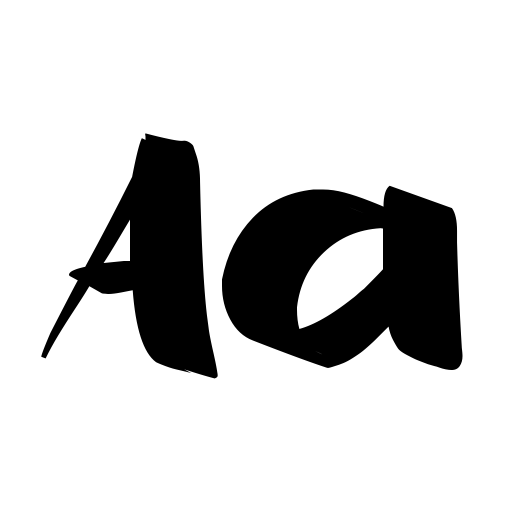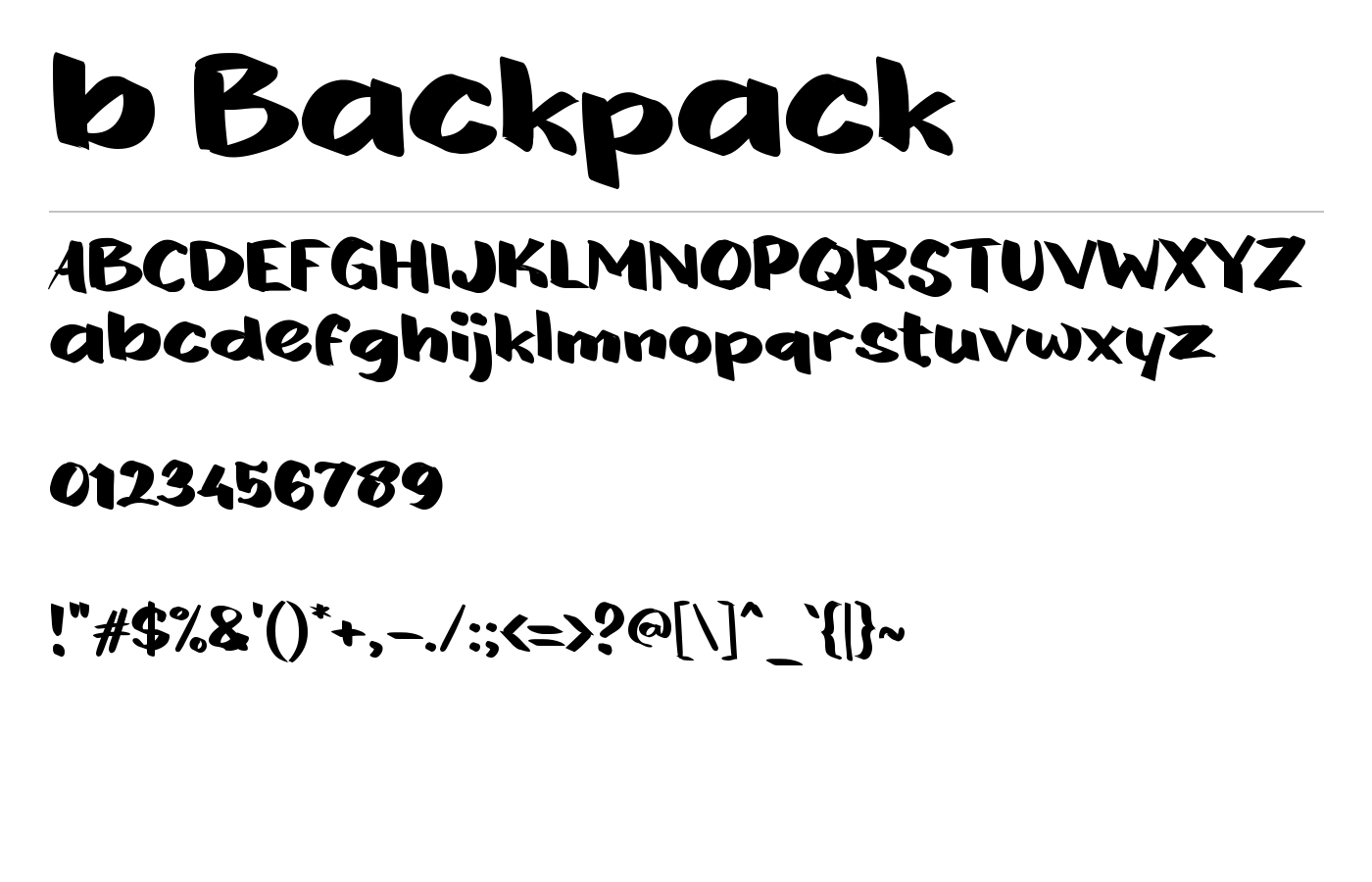
b Backpack is a bold, playful sans serif font with a strong handwritten style, featuring irregular, chunky strokes that give it a casual and friendly appearance. Its high x-height and slightly condensed letterforms make it both eye-catching and legible, ideal for fun and informal designs. This font works great for children's products, logos, posters, and any creative project needing a lively and approachable vibe.
b Backpack Font